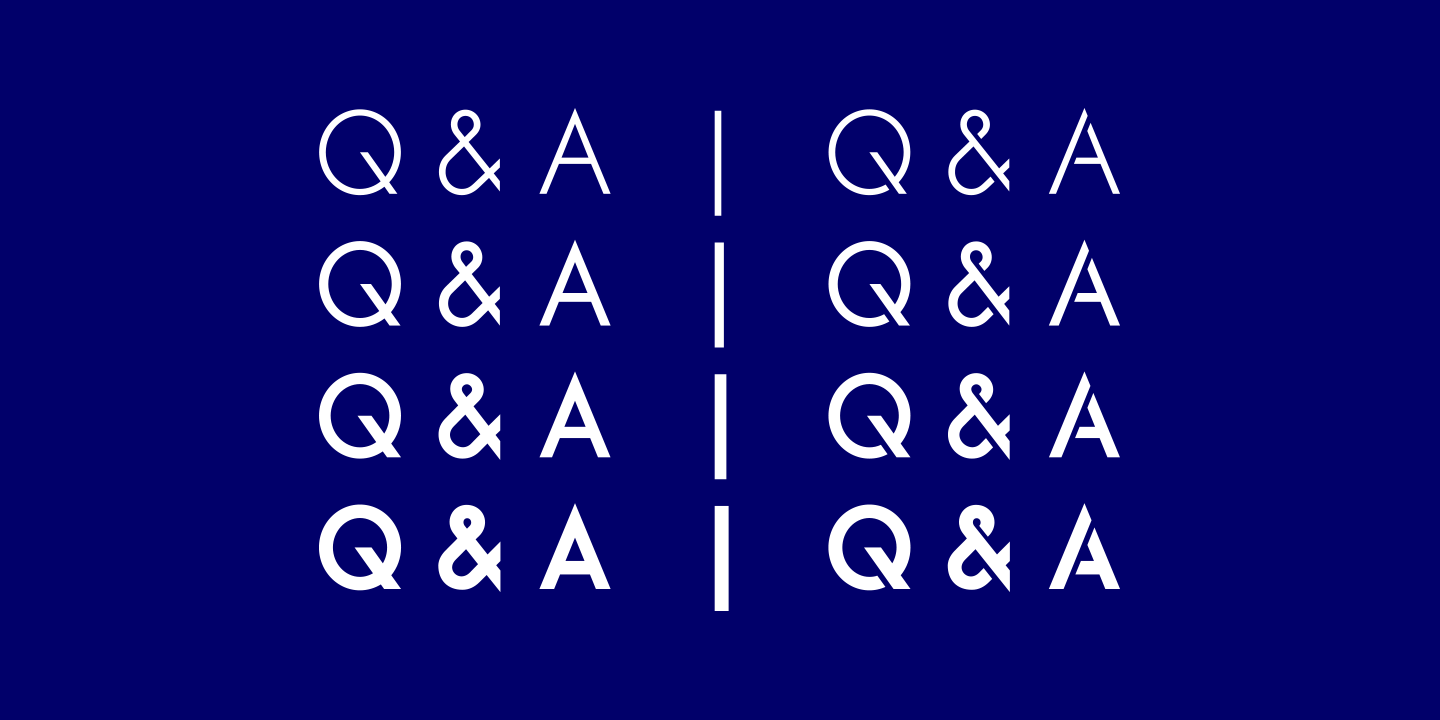
KAPITAL Font is perfect for financial institution branding, corporate headquarters signage, investment firm logos, banking applications, executive presentations, luxury business cards, stock market publications, and prestigious commercial real estate materials.
What makes KAPITAL Font exciting is its commanding presence that embodies financial power and corporate authority through bold, capital-focused letterforms. The strong geometric structure and authoritative character design instantly communicate success, stability, and business leadership that commands respect in professional environments.
KAPITAL Font family includes light, regular, medium, bold, and black weights, plus condensed and extended variations, each featuring uppercase emphasis and corporate-grade spacing systems designed for maximum professional impact.
Command business respect with KAPITAL Font Free Download, the definitive choice for organizations projecting financial strength and corporate excellence. This powerful typeface dominates the typography landscape through letterforms that embody the very essence of capital success and business authority. The expertly engineered characters feature bold proportions that ensure maximum visibility and impact across all corporate applications, from detailed financial reports to massive architectural installations. Financial professionals and corporate leaders consistently select this font for projects demanding the highest levels of business credibility and market authority. Its comprehensive weight system provides unlimited flexibility for creating commanding brand hierarchies while maintaining consistent professional dominance throughout all business communications. Experience the ultimate expression of corporate power that transforms standard business materials into declarations of financial strength, establishing your organization as an industry leader in today's competitive global marketplace.